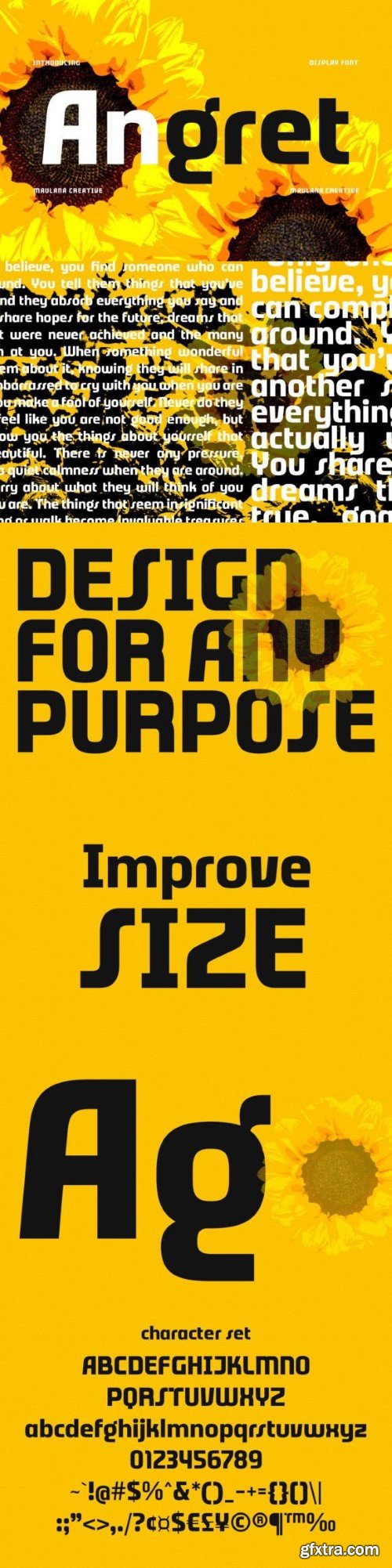
Angret is a bold and assertive sans serif font. No matter the topic, this font will be an incredible asset to your fonts’ library, as it has the potential to elevate any